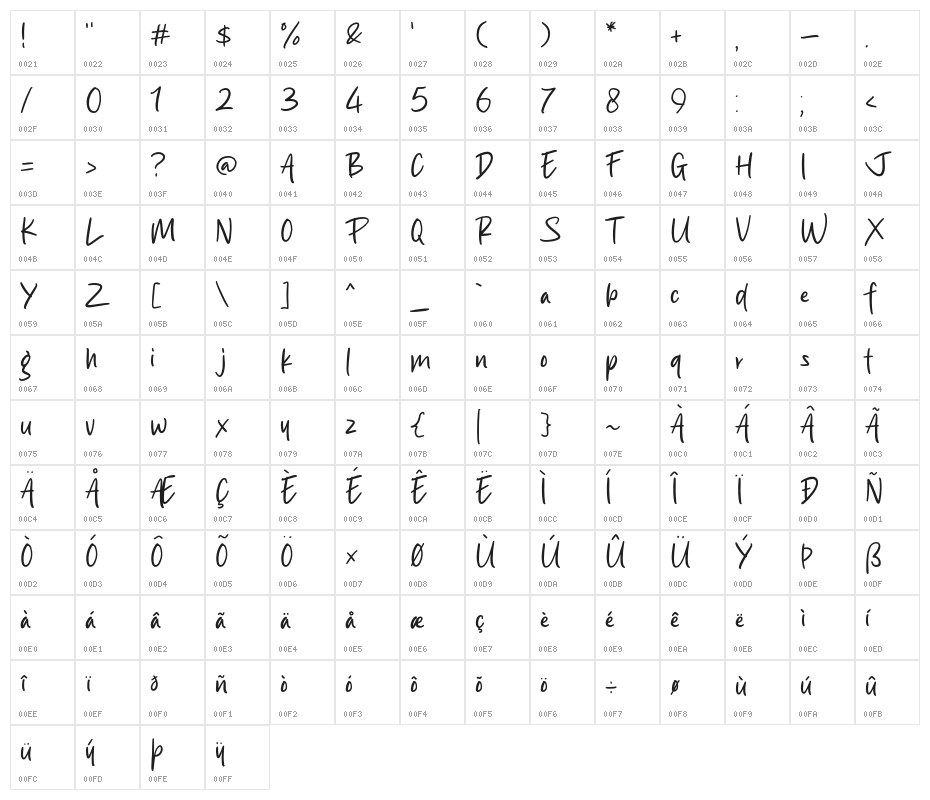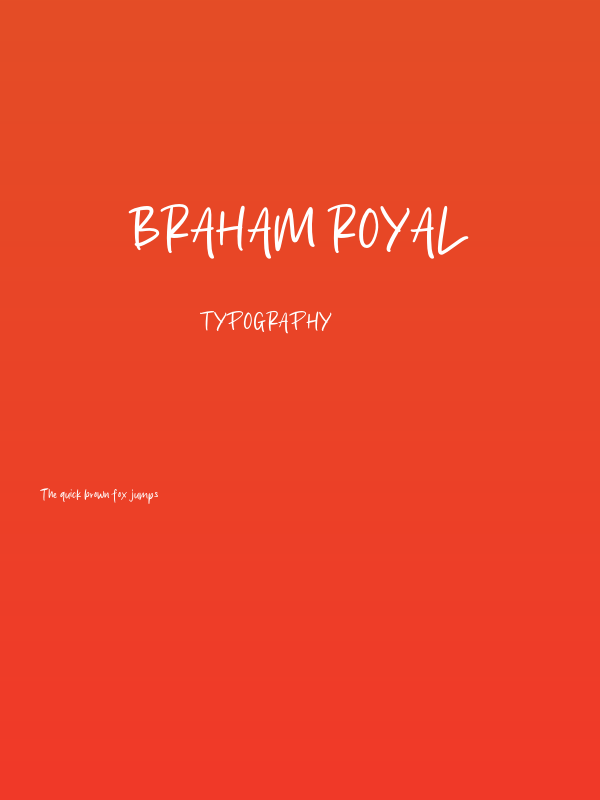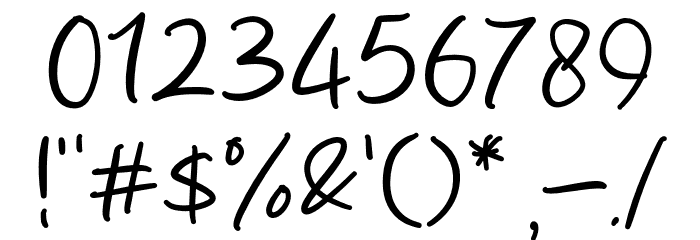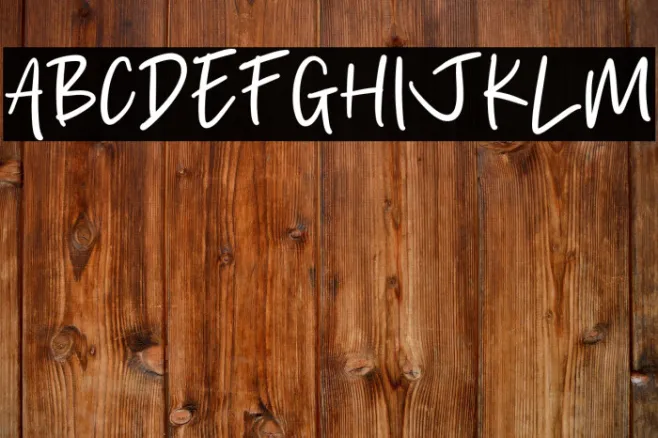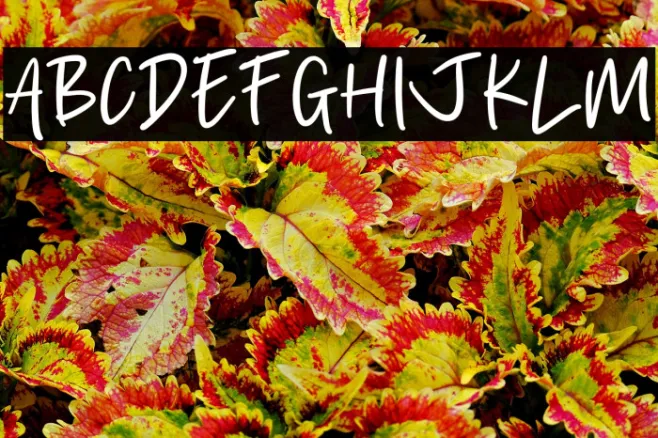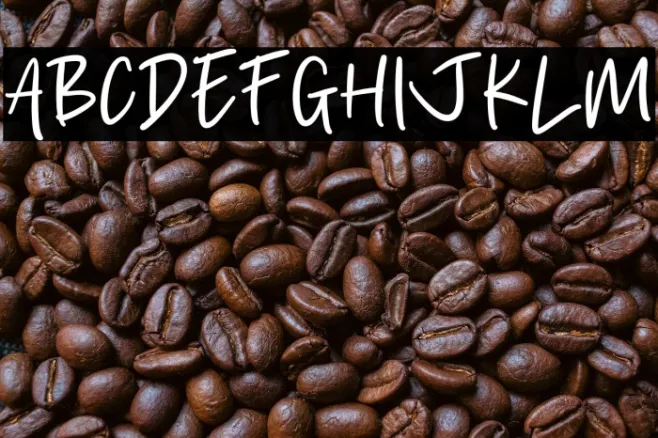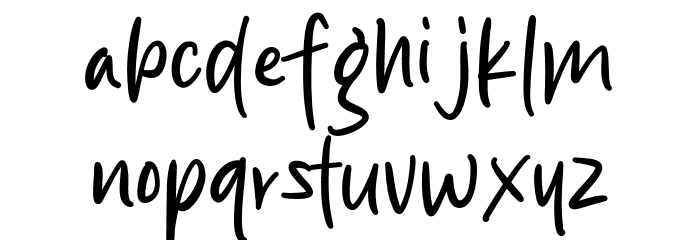
Braham Royal Font
Braham Royal Description
This font exhibits a casual, handwritten style with a playful and informal appearance. The letters are slightly slanted, giving it a dynamic and lively feel. The strokes are consistent in thickness, providing a uniform look across all characters. The uppercase and lowercase letters are well-proportioned, with rounded edges that enhance its approachable and friendly vibe. The numerals and special characters maintain the same handwritten aesthetic, making it versatile for various uses. Overall, this font conveys a sense of creativity and personal touch, suitable for projects that require a humanistic and engaging look.
| Overall Style | Casual, Playful |
| Use Case | Logos, Headlines, Informal Invitations |
| Proposed Projects | Ideal for greeting cards, personal blogs, creative branding, and social media graphics. |